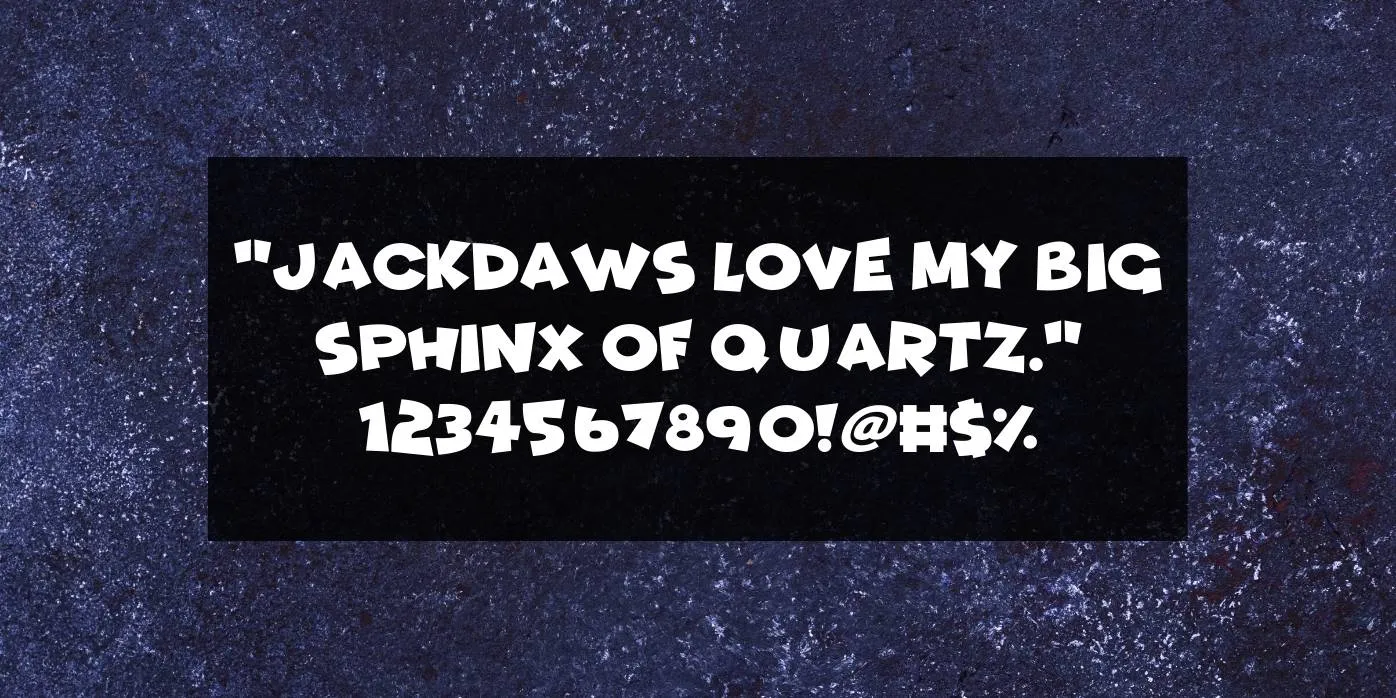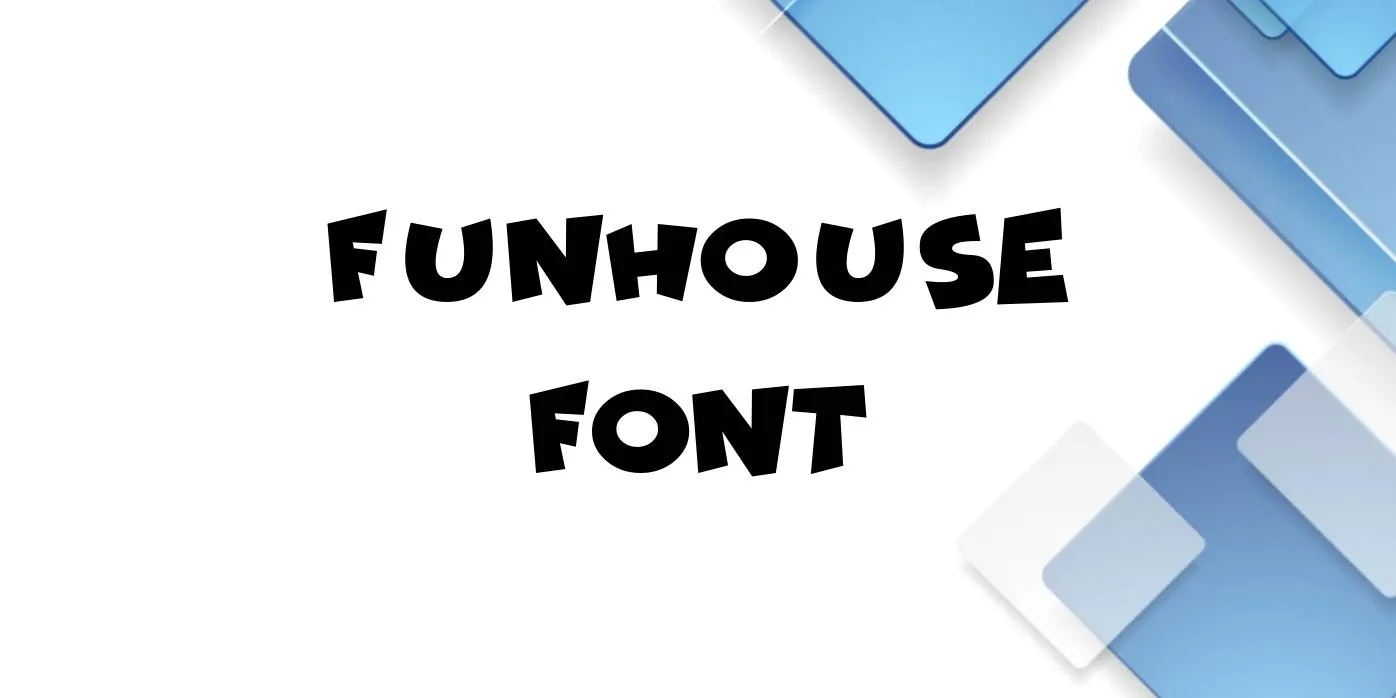
Funhouse Font
Funhouse Font was designed by Darrell Flood and belongs to the fancy fonts. This glorious font has been downloaded 5,803 times. This typeface is perfect for CSS, and SVG. This classy family includes styles for every occasion: Regular, Bold, Black, and Decorated.
The funhouse font is a great choice for any project that needs a touch of fun and playfulness. This font is perfect for invitations, party decorations, children’s books, and more. The copy and paste function of this family is best for text designs. You can also use franchise font which is closest to this font family.